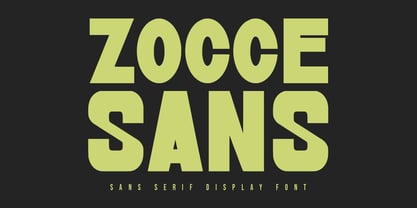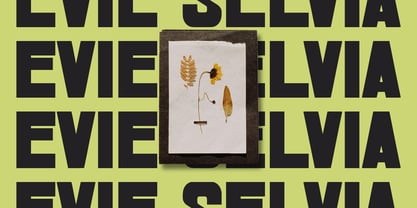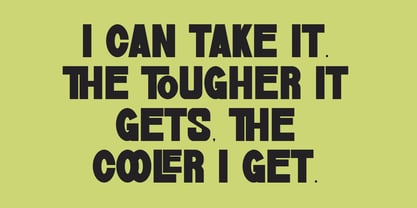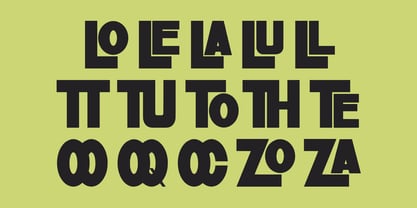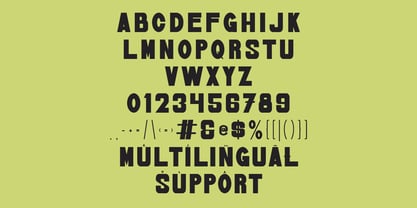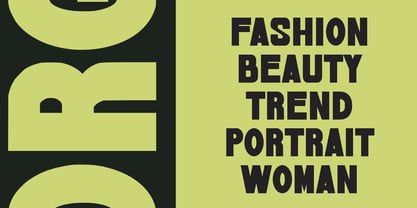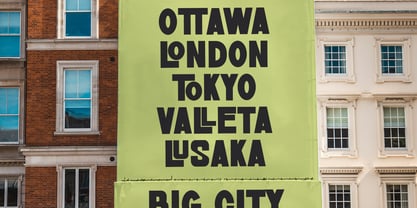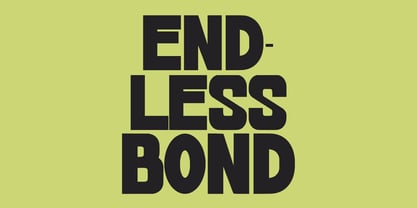
MC Zocce
by Maulana Creative
The MC Zocce Font Family was designed by Gilang Maulana and published by Maulana Creative. MC Zocce contains 1 styles. More about this family
Zocce is a fancy modern condensed all Caps sans serif font. With bold tall and sharp stroke, fun character with a bit of ligatures. To give you an extra creative work. Zocce font support multilingual more than 100+ language. This font is good for logo design, Social media, Movie Titles, Books Titles, a short text even a long text letter and good for your secondary text font with sans or serif. Make a stunning work with Zocce font.
Designers: Gilang Maulana
Foundry: Maulana Creative